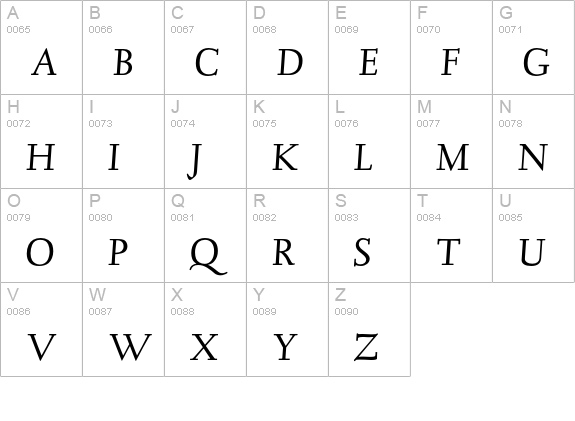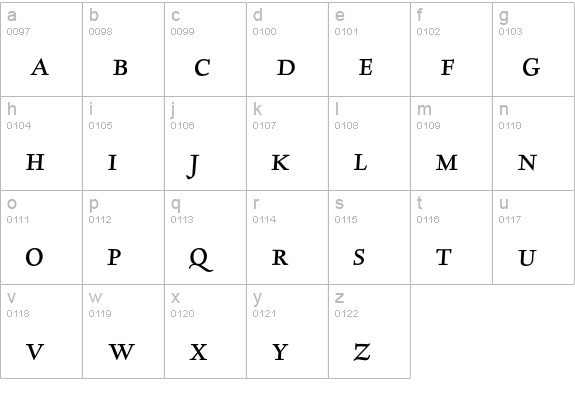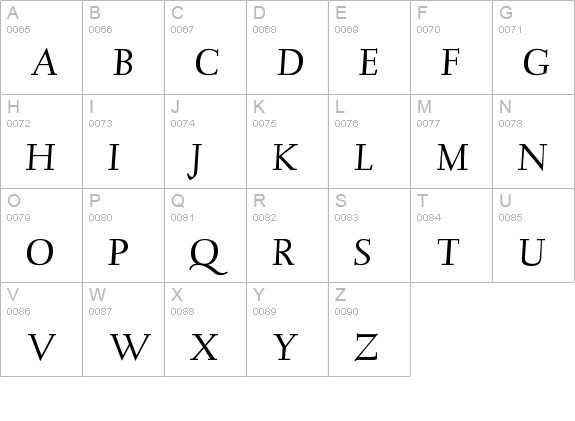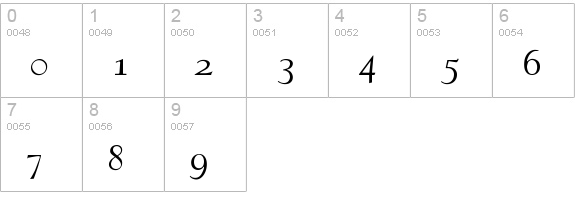
KaatskillH-SC-Italic is a distinctive, italic variant in the KaatskillH typeface family \xE2\x80\x94 well suited to design and typography projects.
KaatskillH-SC-Italic is a stunning font that exudes elegance and sophistication. Its slender and graceful letterforms make it perfect for adding a touch of class to any design project. The delicate slant of the italic style adds a sense of movement and fluidity, making this font truly captivating. With its unique and distinctive look, KaatskillH-SC-Italic is sure to make a lasting impression. Whether it is used for logos, branding, invitations, or headlines, this font will elevate any design to new heights of visual appeal. What sets KaatskillH-SC-Italic apart is not just its exceptional aesthetics, but also its availability as a free download. FontsMarket.com offers this font for free, allowing designers and creatives to access its beauty without any financial burden. This generosity makes KaatskillH-SC-Italic an invaluable resource for anyone seeking a high-quality font for their projects. Designed with meticulous attention to detail, KaatskillH-SC-Italic is a typeface that combines classic elegance with a modern twist. Its versatility allows it to be used in a variety of contexts, from print to digital media. Whether it is used for formal invitations, editorial layouts, or website designs, KaatskillH-SC-Italic will effortlessly enhance any composition. The legibility of KaatskillH-SC-Italic is exceptional, making it suitable for both large and small sizes. Its clear and refined letterforms ensure that every word is easily readable, while its distinct personality adds a touch of sophistication to any text. In conclusion, KaatskillH-SC-Italic is a font that seamlessly blends elegance, versatility, and readability. Its availability as a free download at FontsMarket.com makes it an irresistible choice for designers and typographers alike. With KaatskillH-SC-Italic, you can effortlessly elevate your designs and create visual masterpieces that leave a lasting impression.